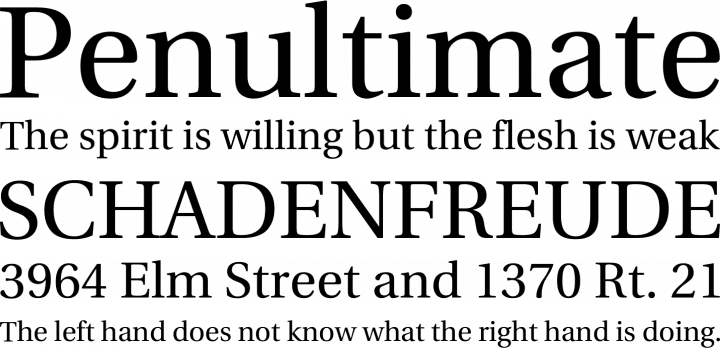
Utopia Font Family Free
Utopia font family free. It combines the vertical stress and pronounced stroke contrast of eighteenth century transitional types like baskerville and walbaum with contemporary innovations in character shapes and stroke details. Utopia regular viewed 43998 times so far. This family contains 4 fonts in styles such as regular bold and bold italic.
The adobe originals program started in 1989 as an in house type foundry at adobe brought together to create original typefaces of exemplary design quality technical. 008adbeutopiastd semiboldsubhutopia std semibold subheadotf 1. Download utopia for windows mac and linux.
The utopia type available for desktop use. Utopia created by robert slimbach and presented by adobe in 1992 was intended to solve a number of typographic problems related to office correspondence. The utopia font family is an adobe originals didone serif typeface that was designed by adobe systems employee robert slimbach in 1989.
We have thousands of free fonts available for you. Explore utopia designed by robert slimbach at adobe fonts. This demanded versatility so slimbach created a font family with cuts.
Test utopia std font family now use this extremely handy tool to test the font appearance for free. Utopia font family browse a full collection of fronts from the utopia font family. The utopia typeface combines the pronounced stroke contrast and the vertical.
About this font family utopia is an adobe originals text face designed by robert slimbach in 1989.